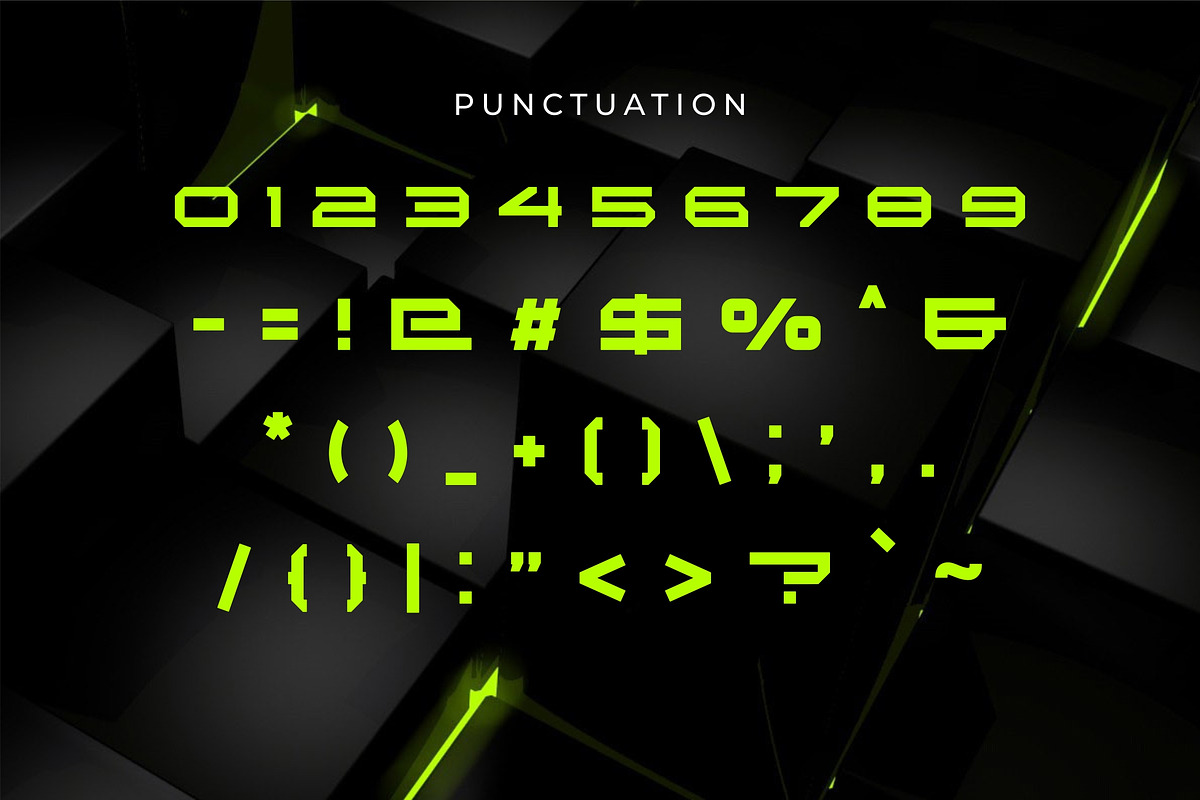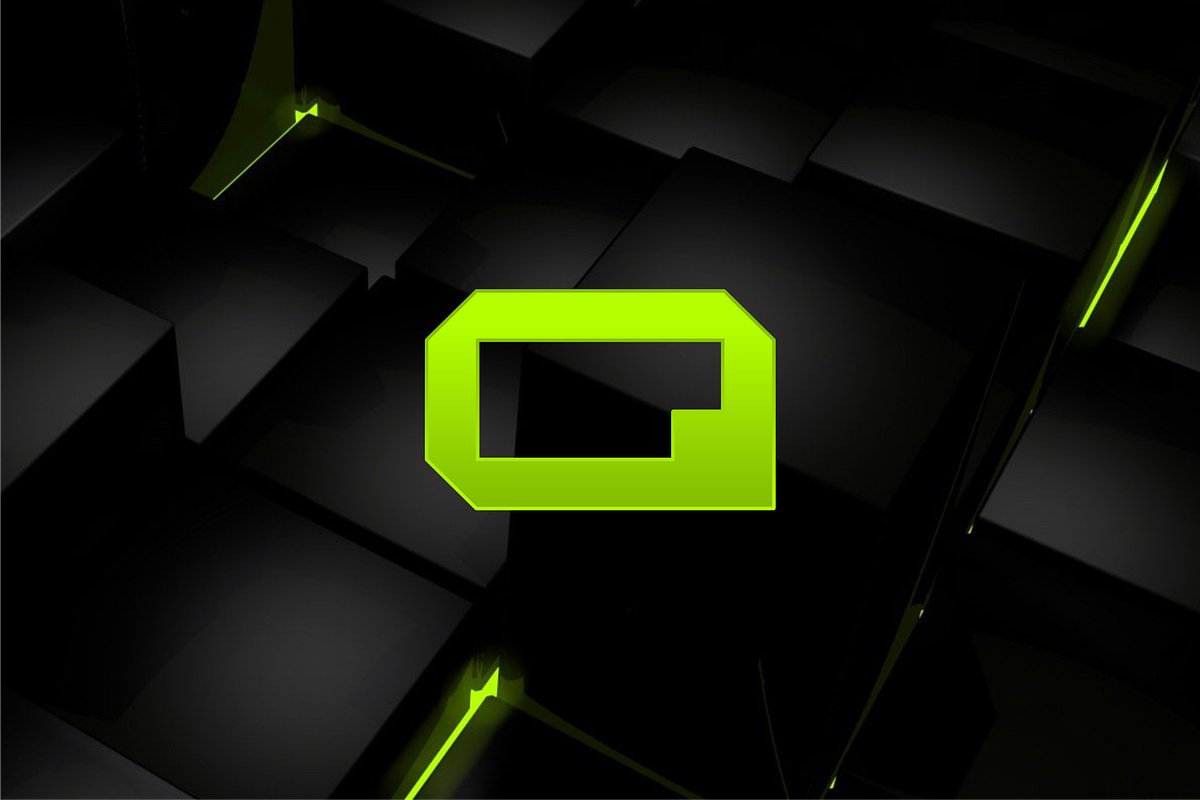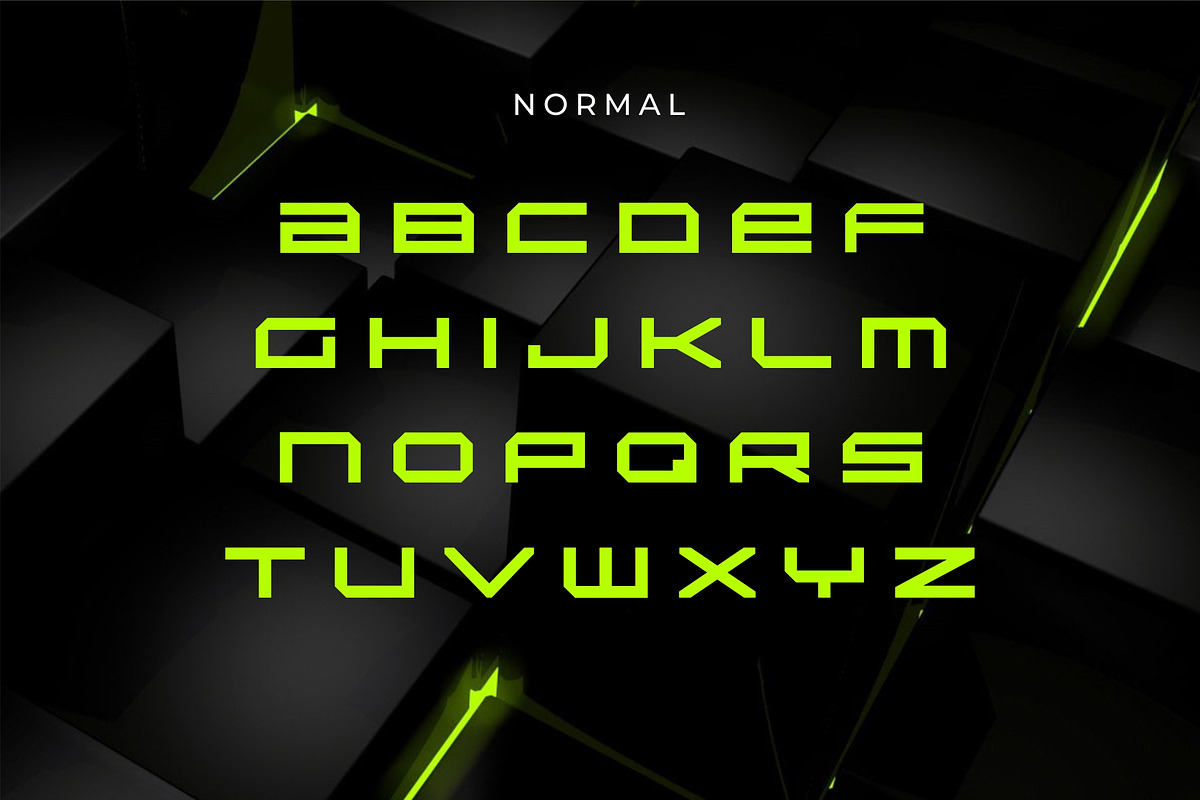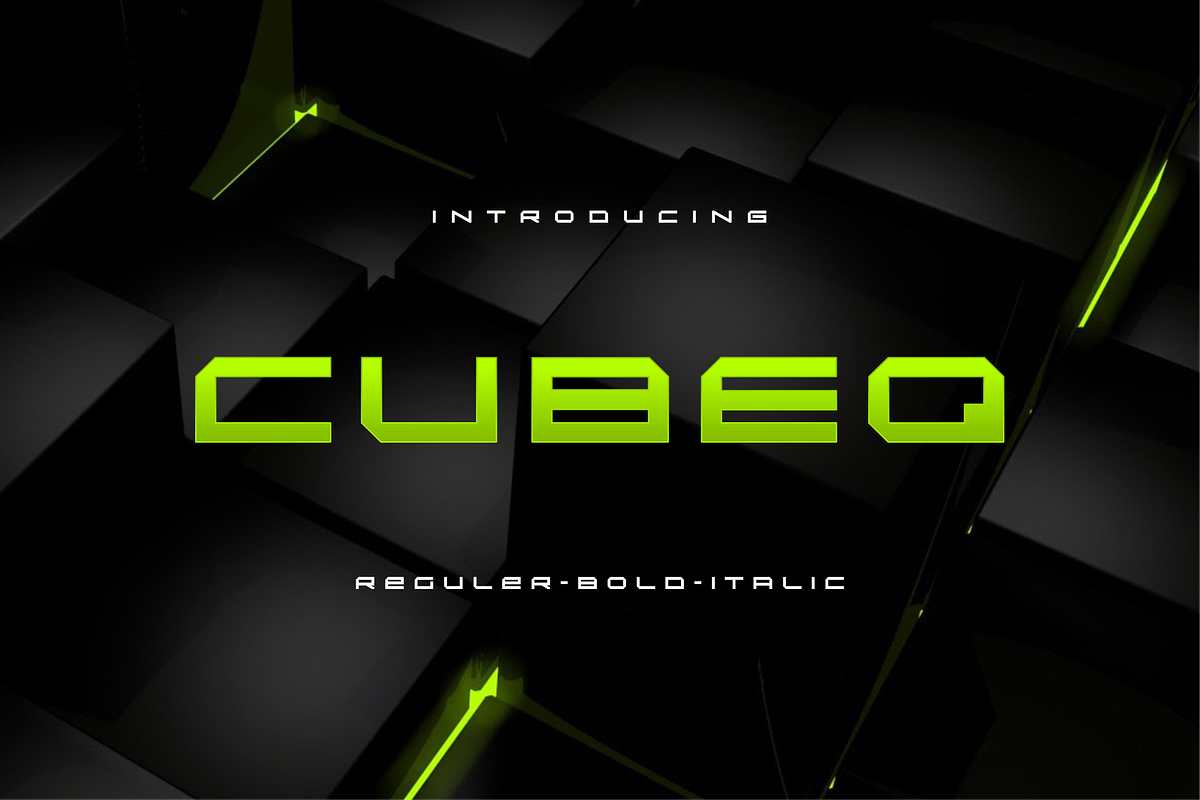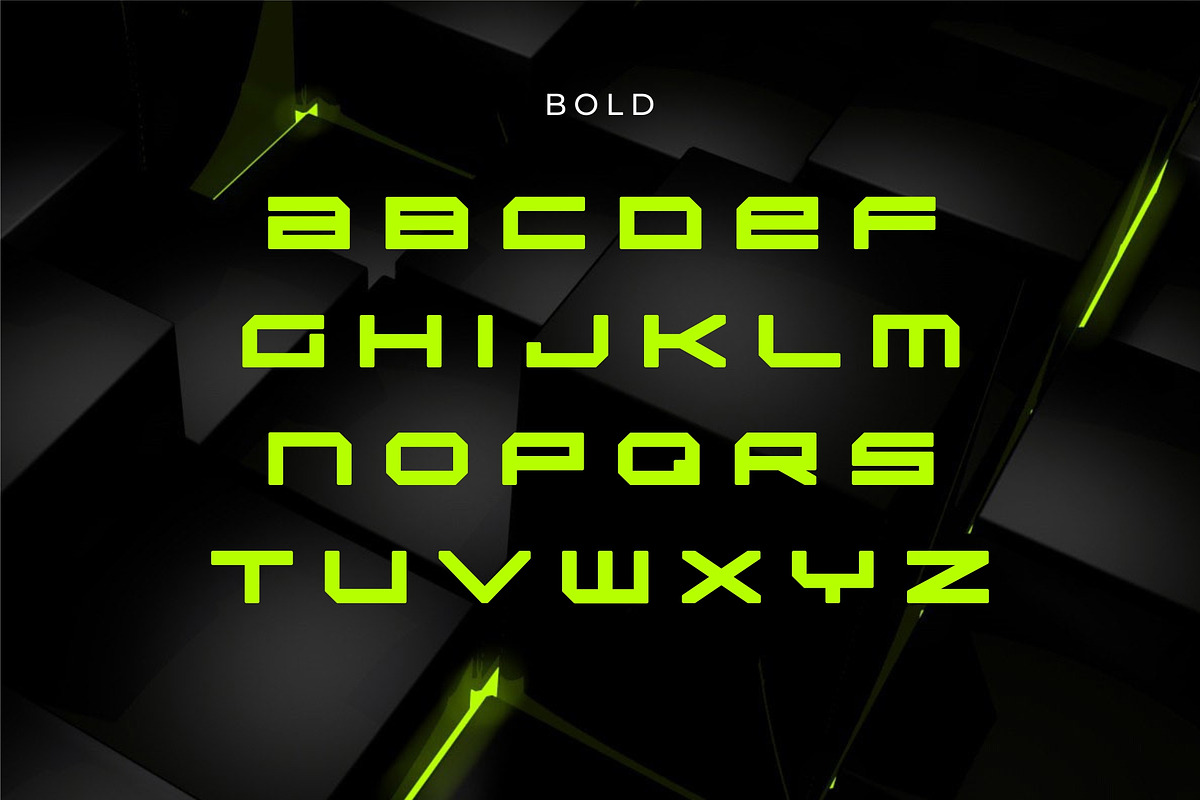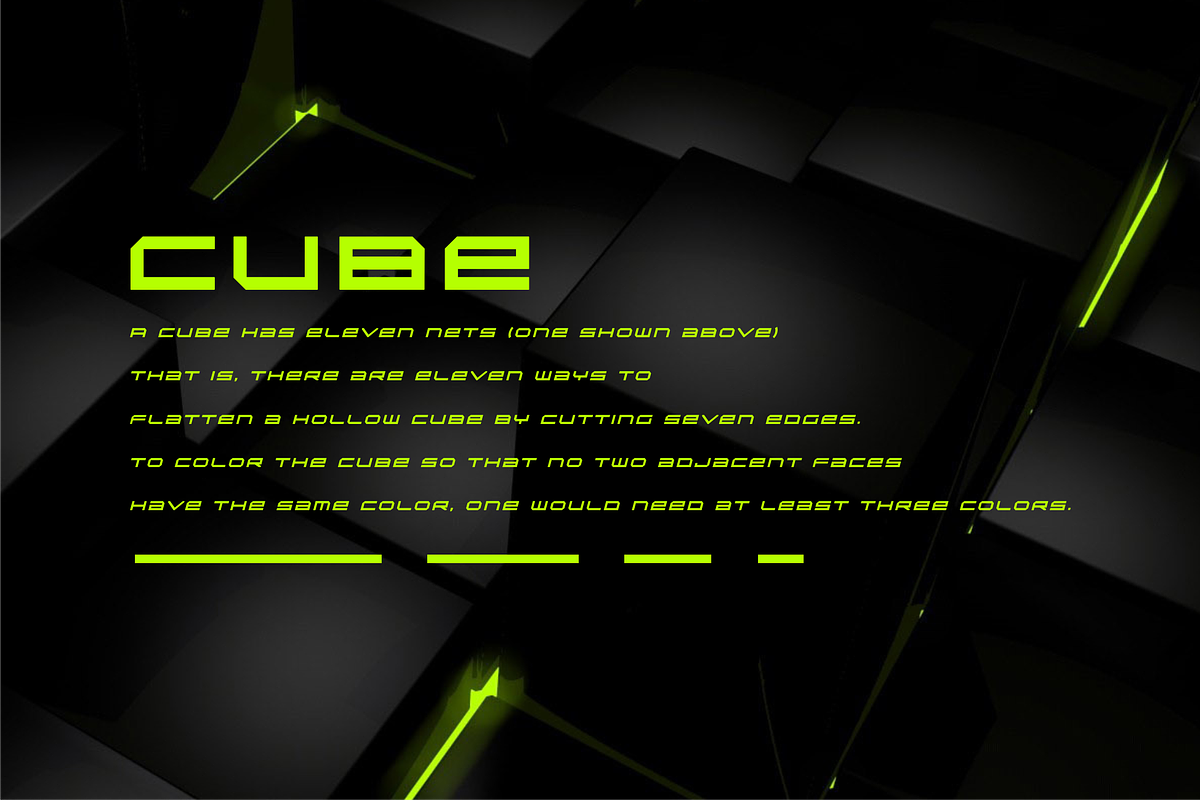
CubeQ
CubeQ font
CubeQ Its unique and modern style makes it stand out from other fonts, making it perfect for anyone who wants to make a statement.,The font is suitable to use for many occasion such as game, fashion, science music, movie title, brand, technology, space and many more.